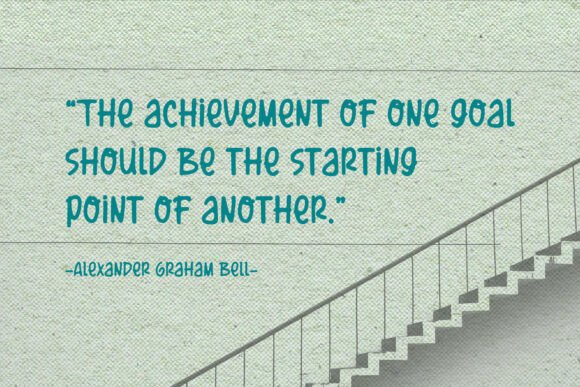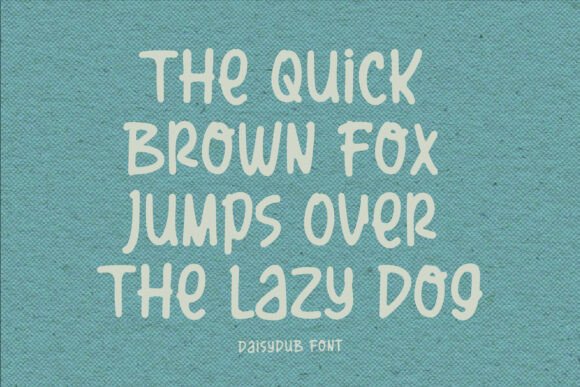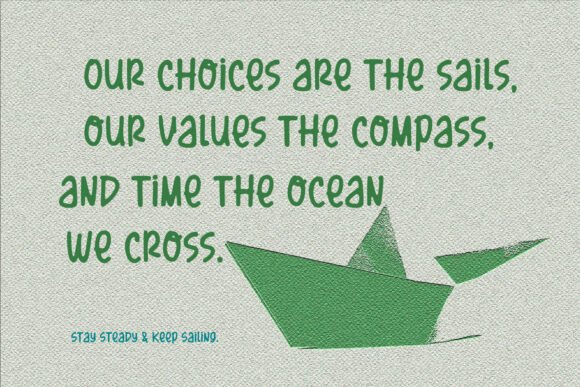
Daisydub Font: A Playful Handwritten Font for Cute DIY & Craft Projects!
About the Daisydub Font
Experience the unique personality of Daisydub Font, a font designed for impact. Daisydub font has been released for those of you who are looking for a handwritten, unique typeface that a playful, smooth, and casual strokes appearance, it delivers strong legibility with a professional edge. With an easy-to-read character font for your project, you can easily create a great and stand-out logo, invitations, labels, magazines, books, greeting cards, wedding cards, packaging, fashion, makeup, novels, and stationery.
Daisydub excels in applications requiring a friendly, approachable feel. It’s ideal for headlines, short-form text in branding materials, packaging design, and invitations where its handwritten charm shines. The font’s legibility makes it suitable for short-paragraph publications like magazines or brochures, but avoid using it for extended body text or UI elements.
Consider pairing Daisydub with a clean sans-serif like Montserrat for a modern contrast, or a classic serif like Garamond for a more traditional balance. A playful script font could also complement its casual nature, while a geometric sans-serif would offer a striking juxtaposition.
Its overall personality is best described as playful yet professional, making it a versatile choice for brands targeting a younger demographic or projects needing a touch of handmade authenticity without sacrificing readability.